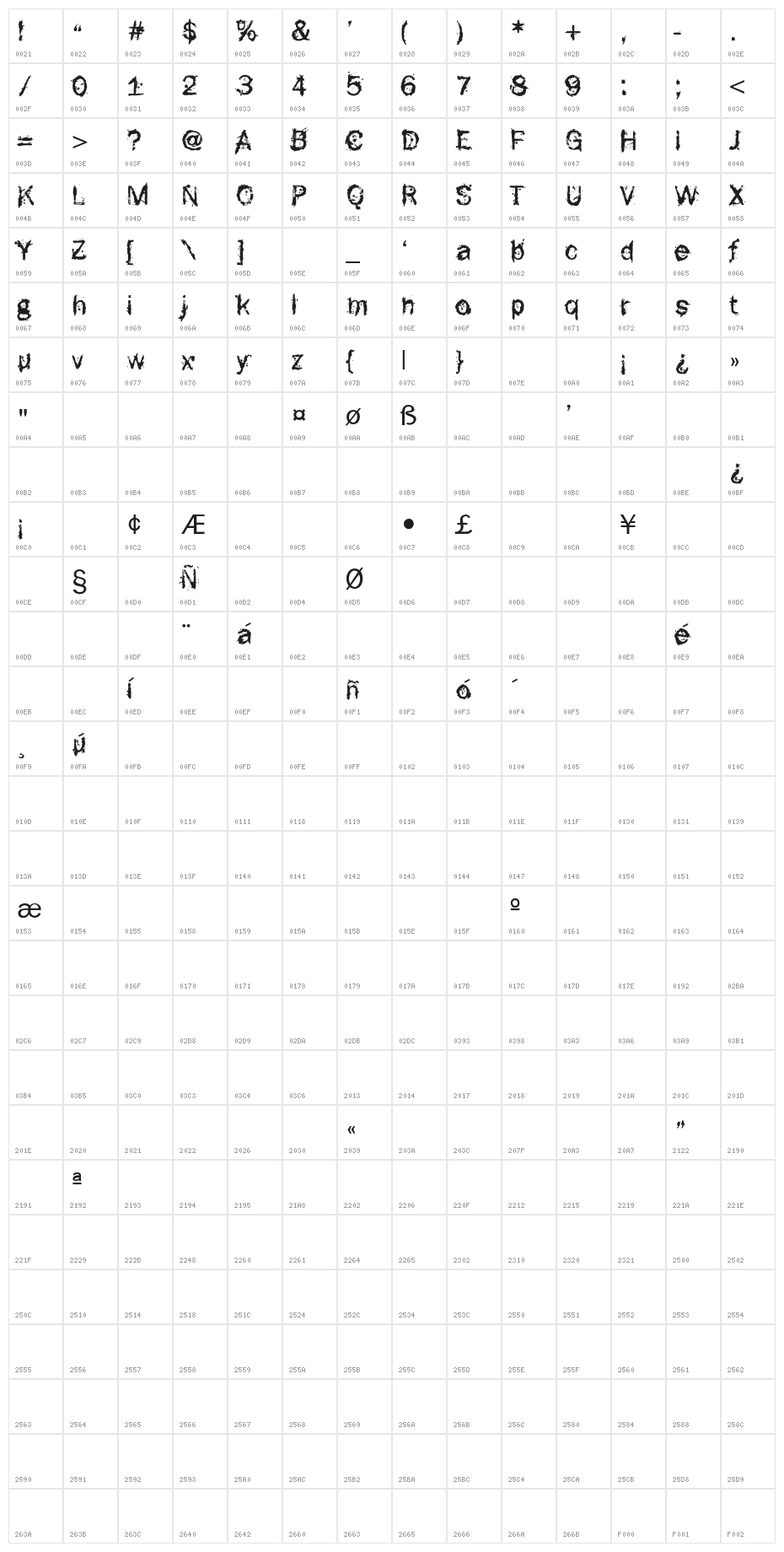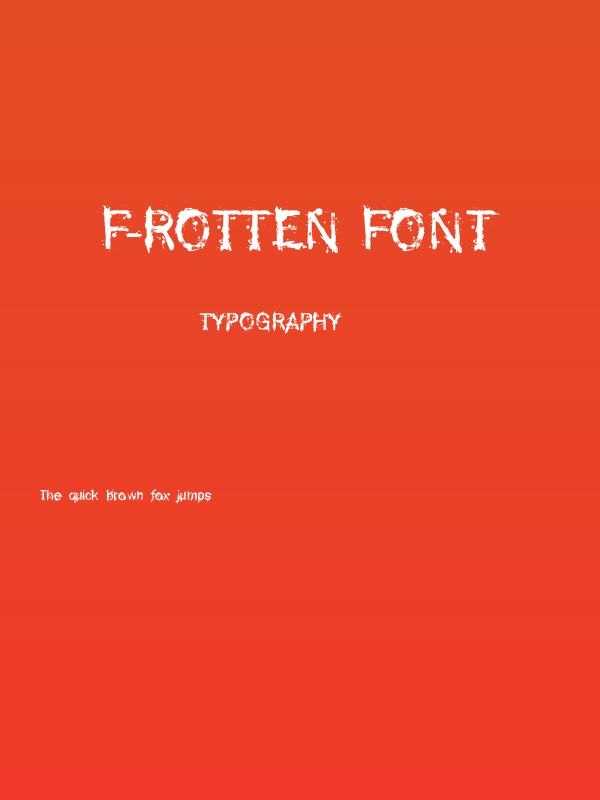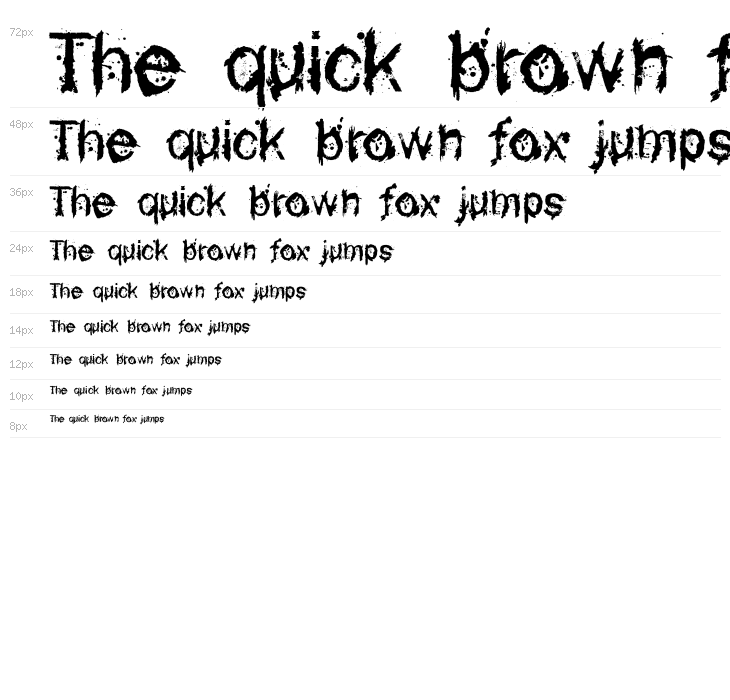
F-Rotten Font Font
✎ Distorted Eroded
| Gesamtstil | Grunge, Urban |
| Vorgeschlagene Projekte | Ideal for album covers, posters, streetwear branding, or any project needing an edgy, rebellious vibe. |